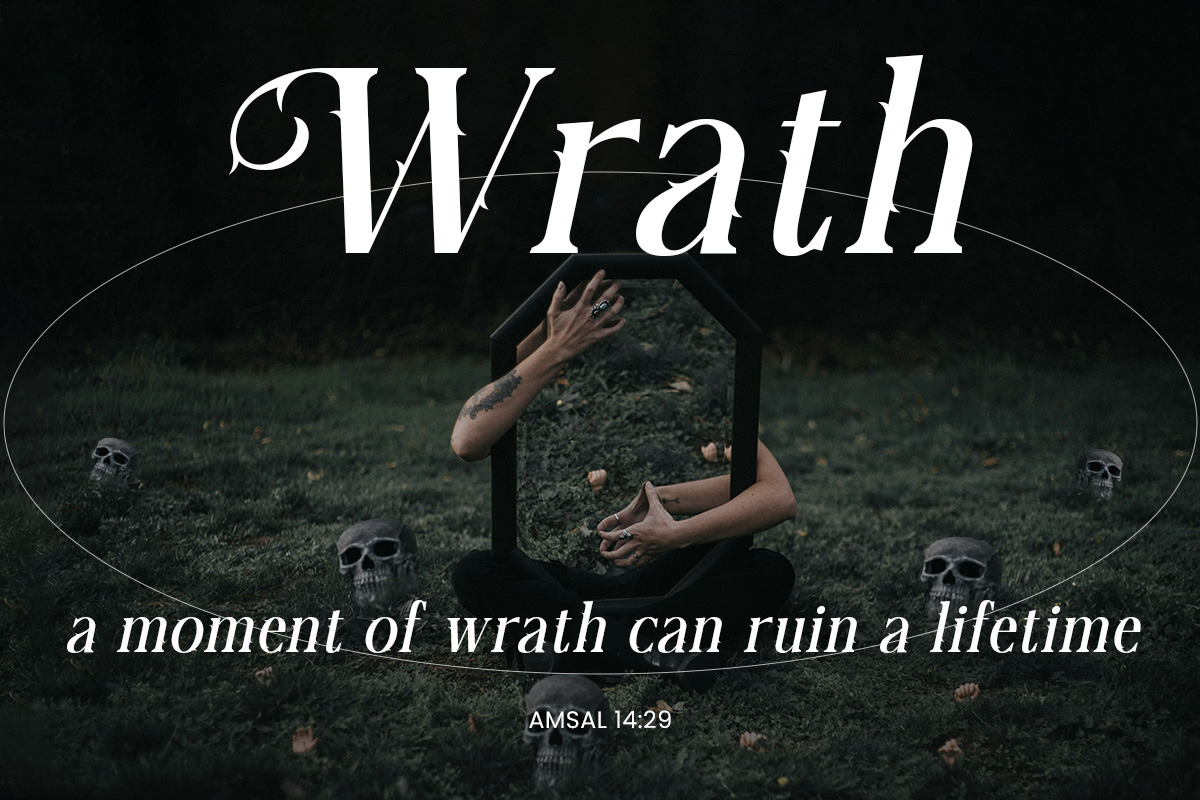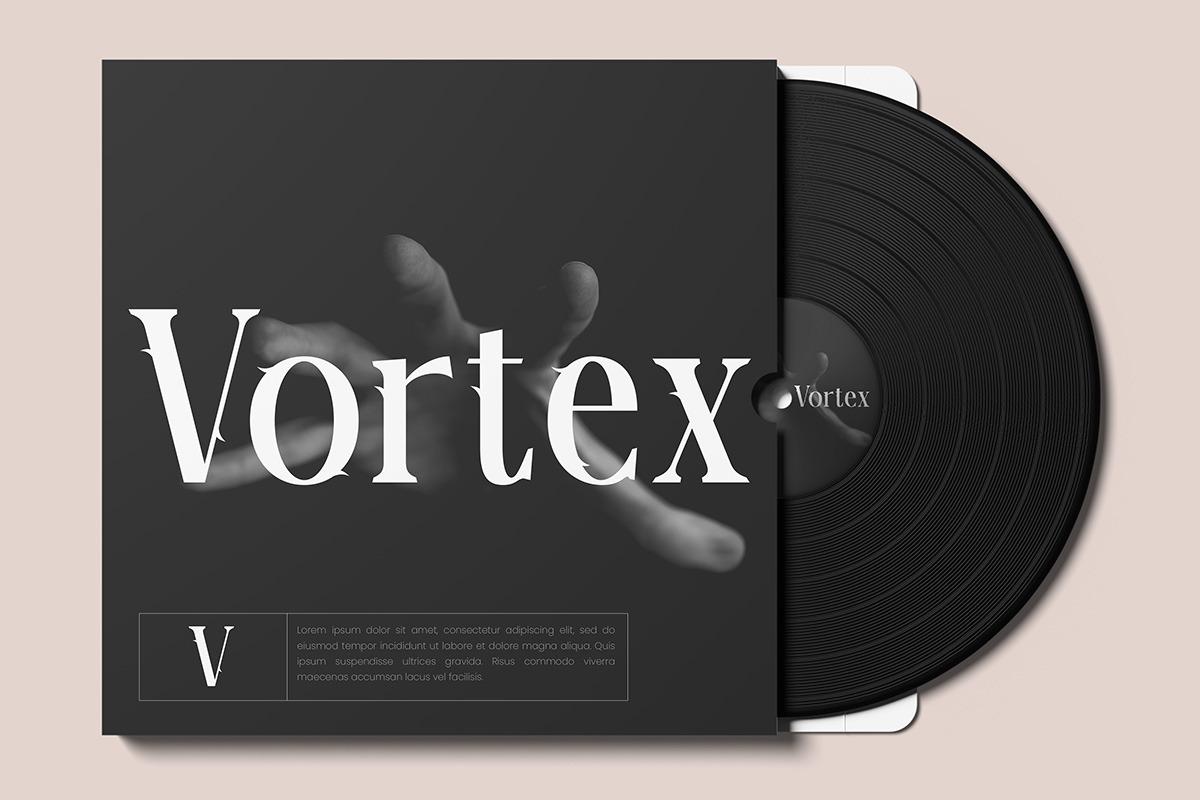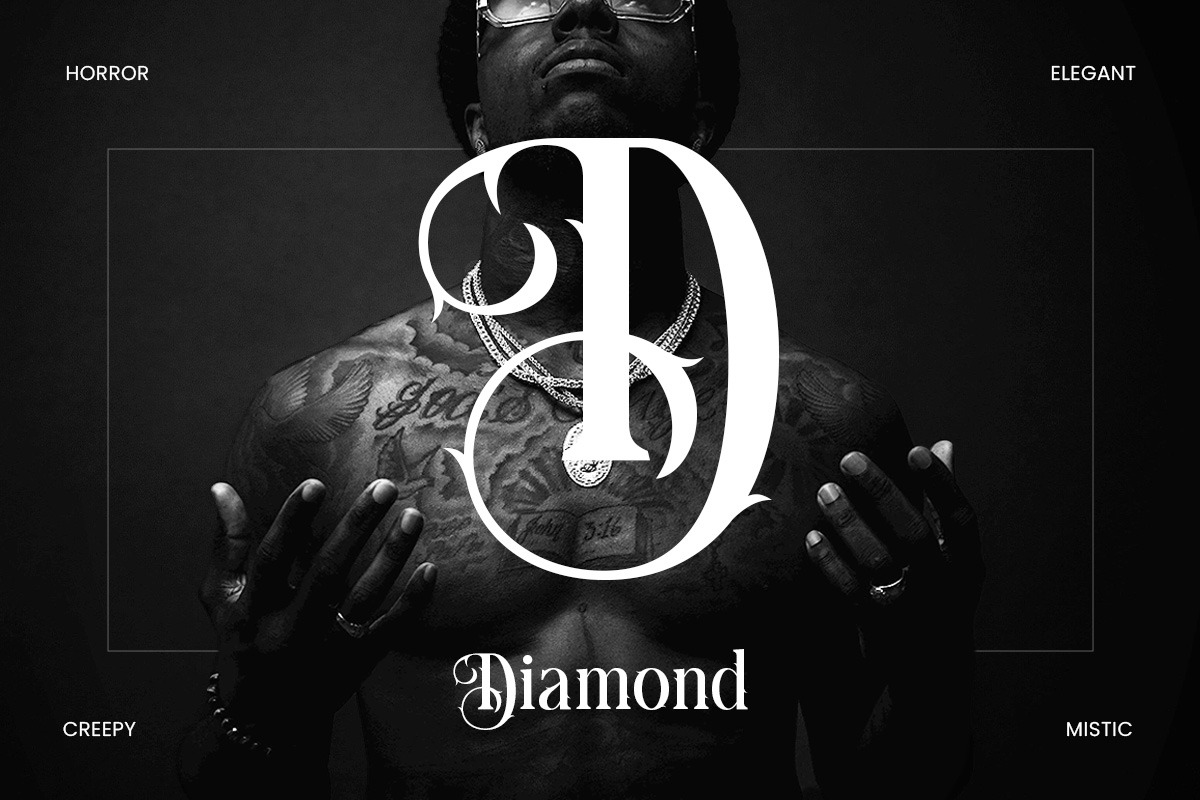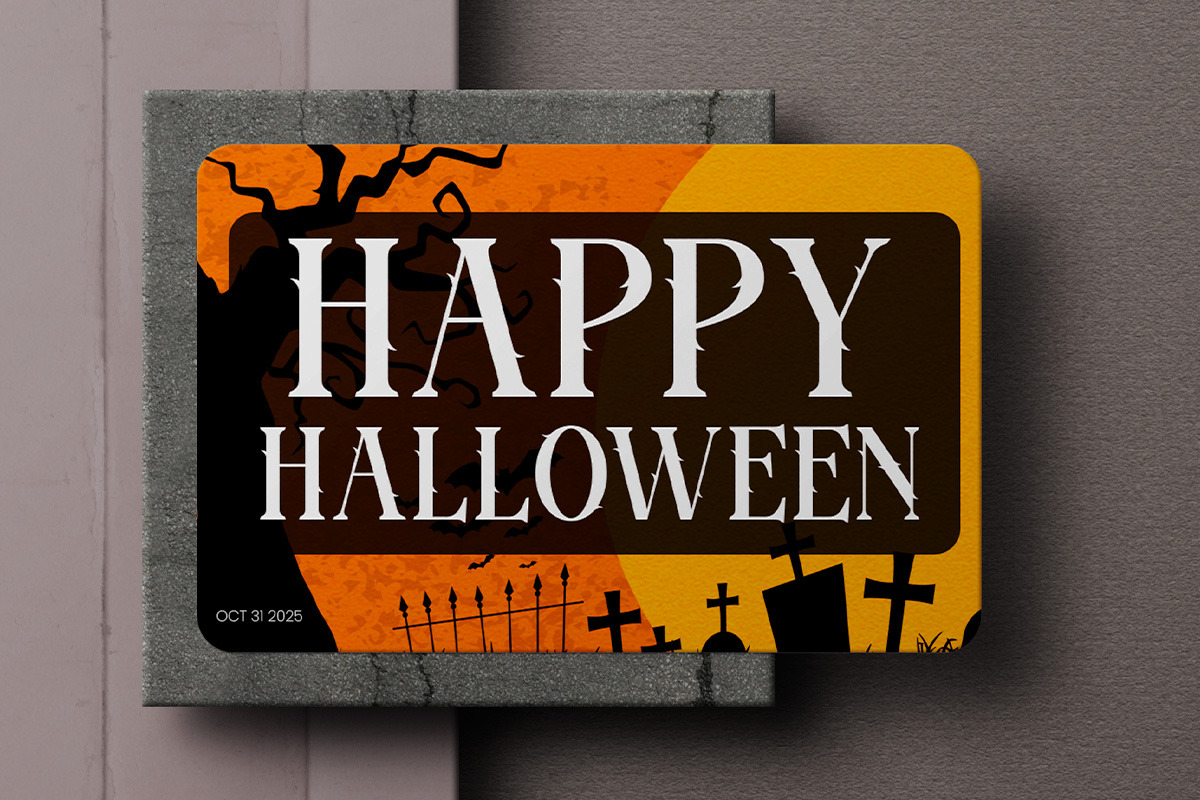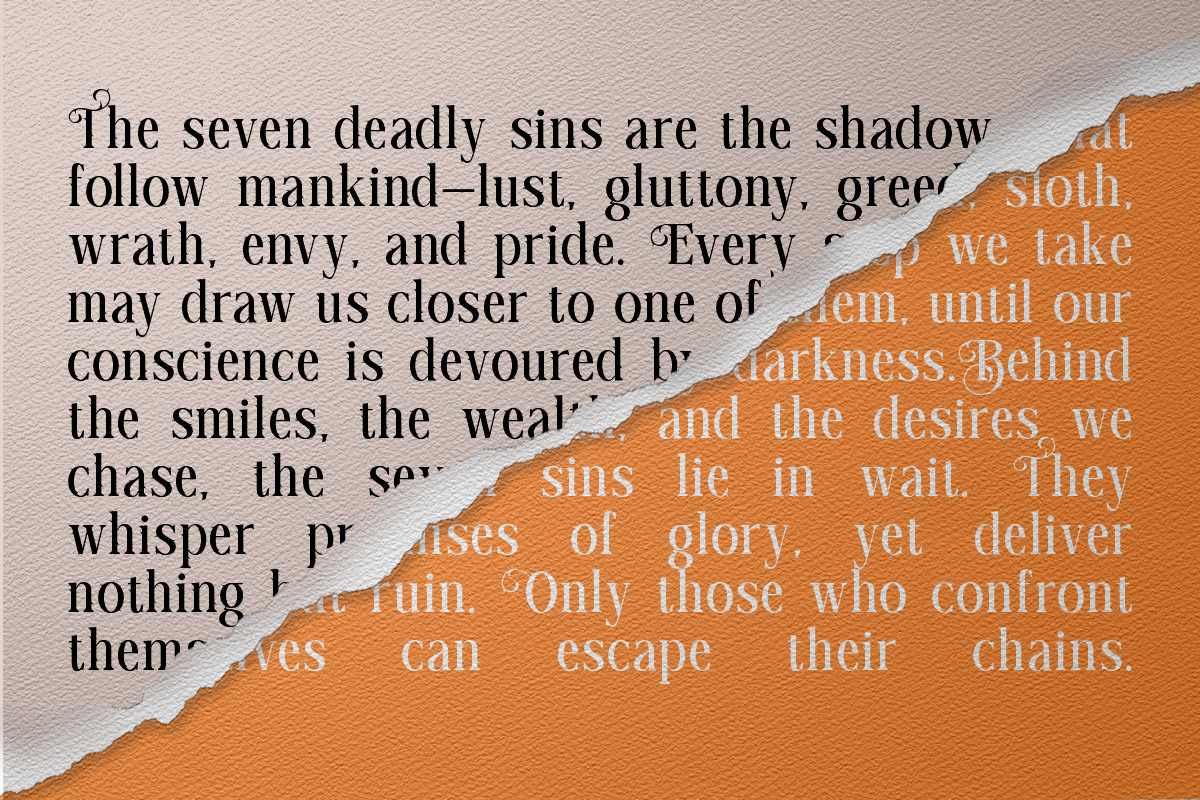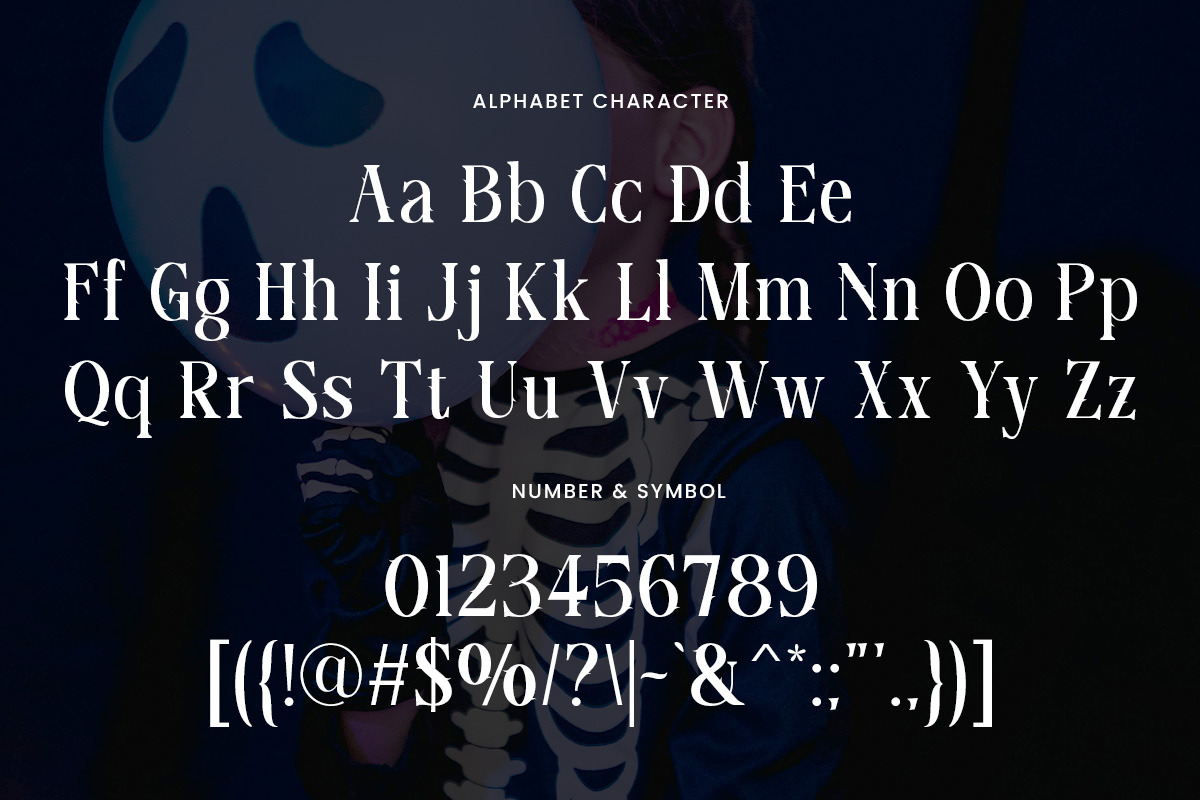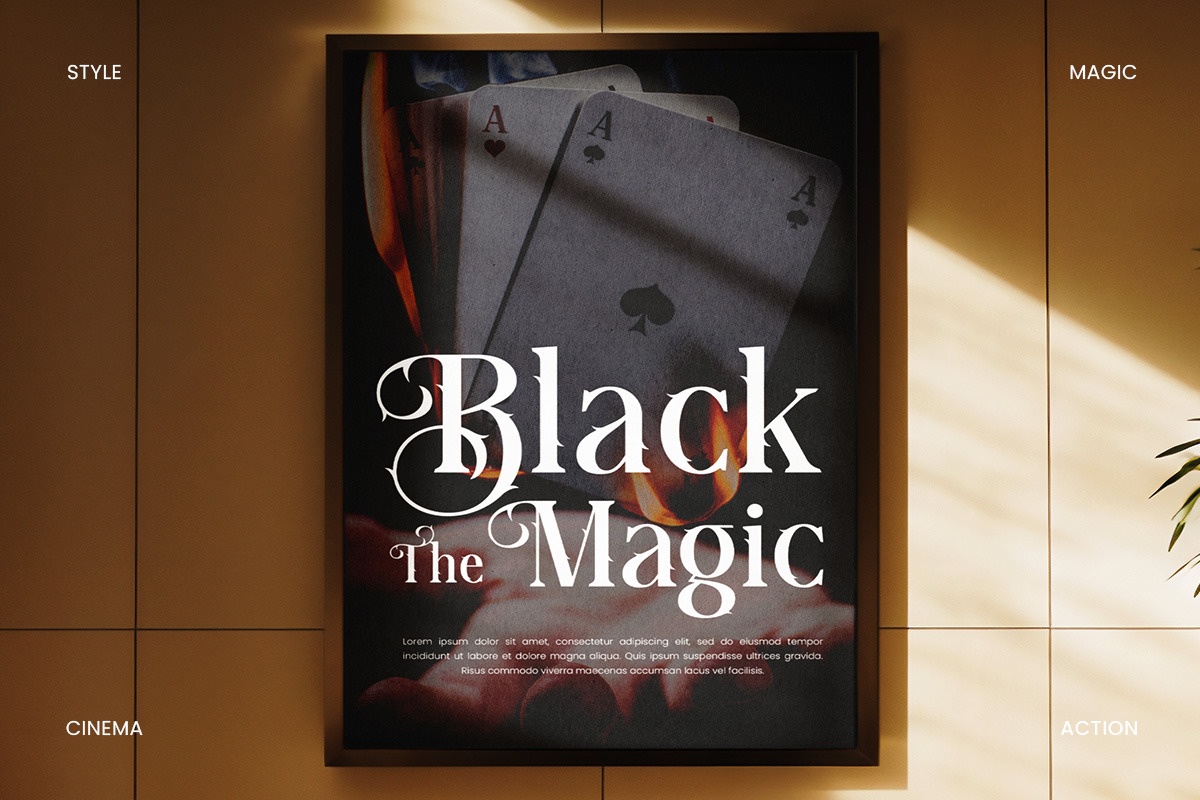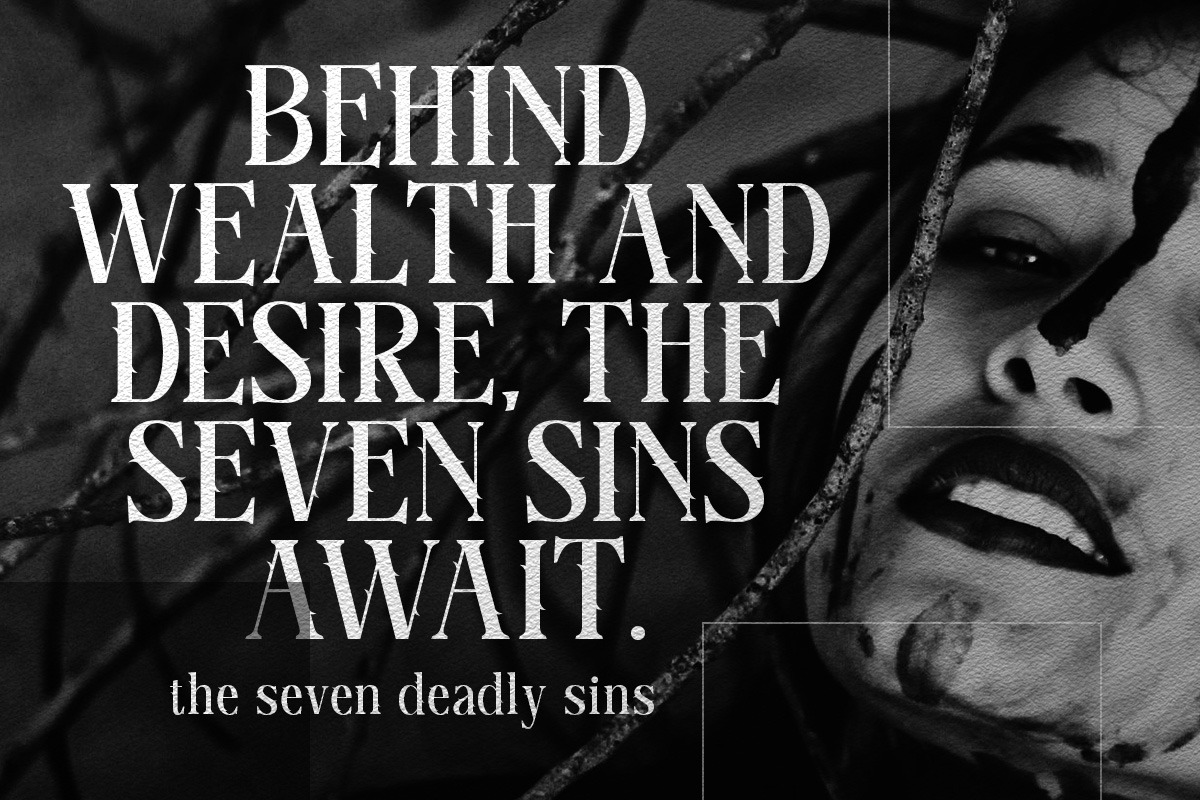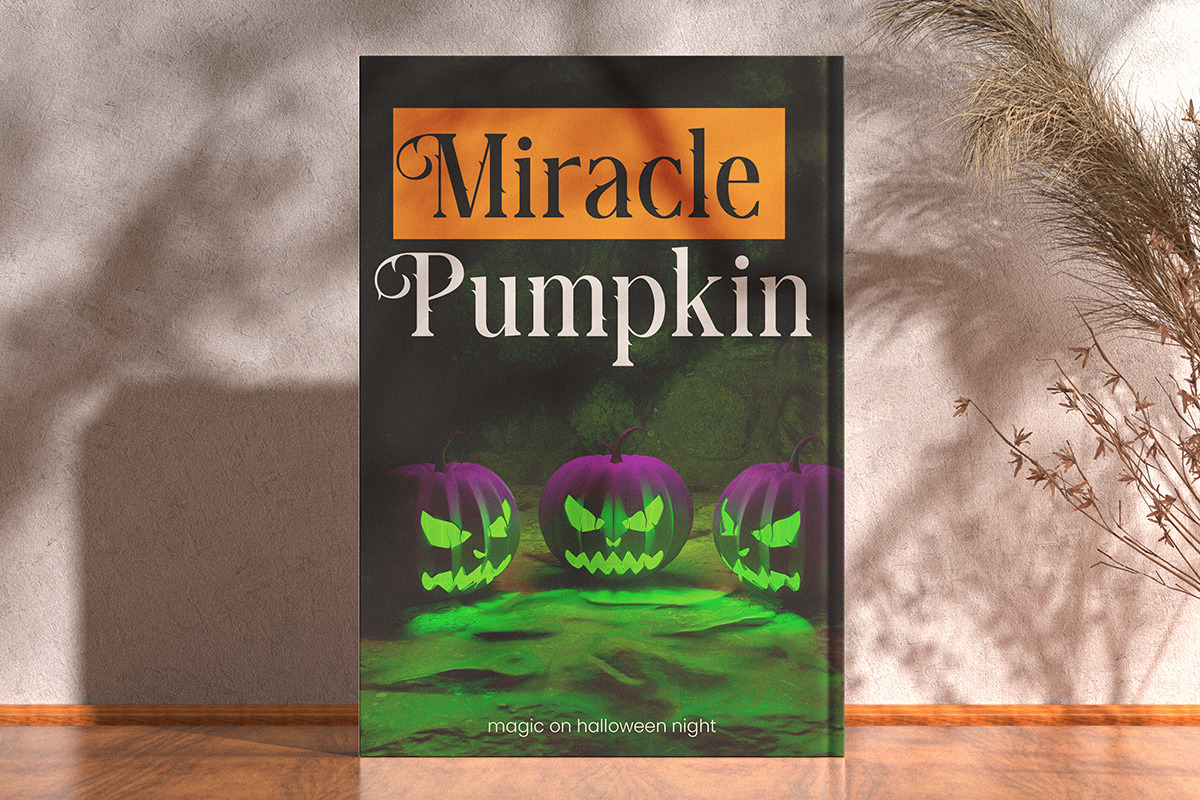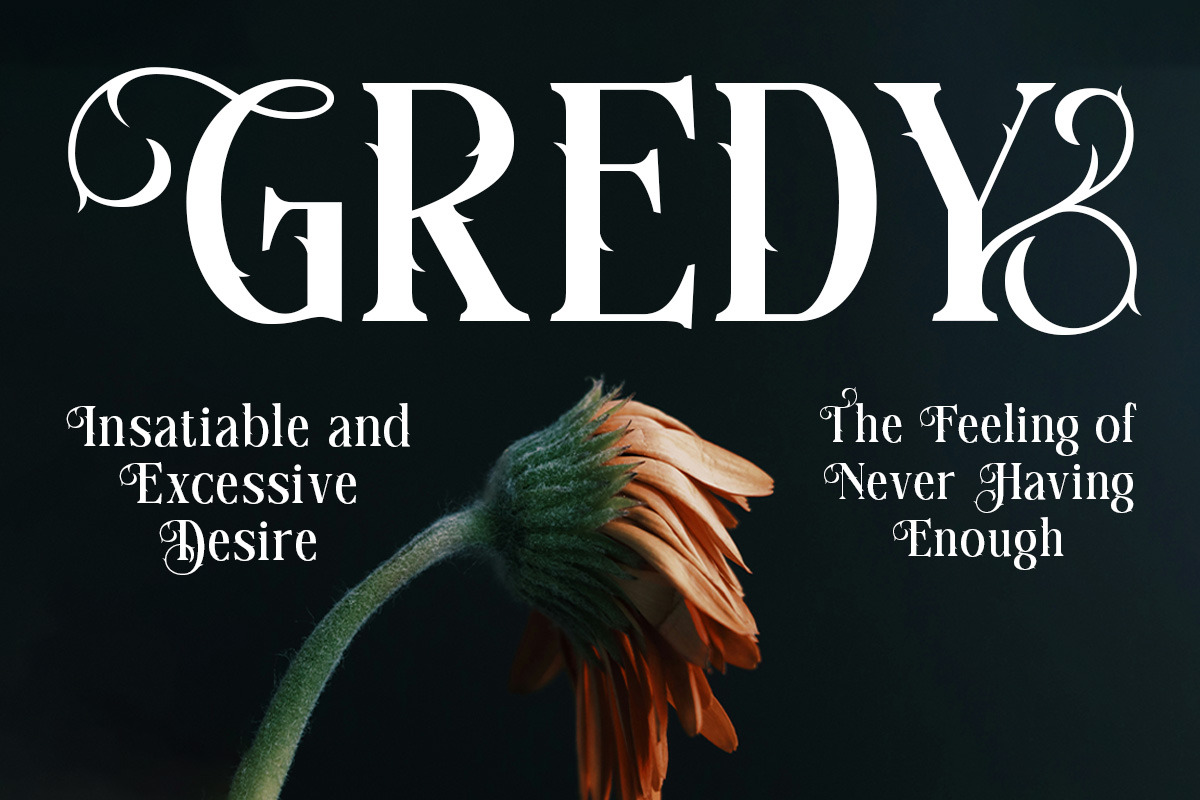
Deadly Sins – Gothic Horror Display
Deadly Sins is a gothic horror display font designed to bring a dark, mysterious, and unforgettable vibe to your projects. With bold letterforms, dramatic curves, and atmospheric details, this font captures the perfect balance between vintage gothic elegance and modern horror aesthetics. Its sharp edges and haunting style make it versatile for posters, Halloween invitations, book covers, branding, or social media graphics that demand intensity and impact. If you’re looking to add a spooky, cinematic, and powerful touch to your design, Deadly Sins is the font you need. Support: - Regular - OTF TTF and WOFF font versions - Uppercase & Lowercase - Numbers & Punctuation - Works on PC & Mac - Simple Installations Please don’t hesitate to contact me if you have any questions. Happy creating and have a good day!